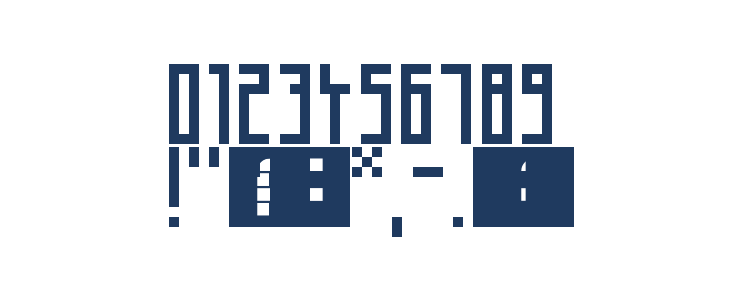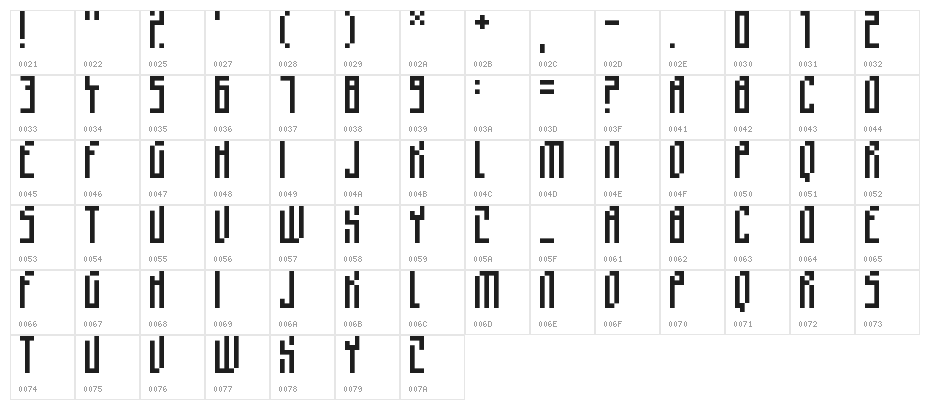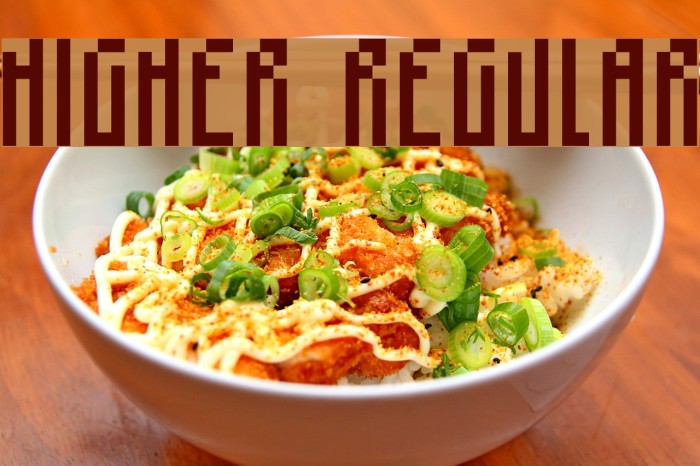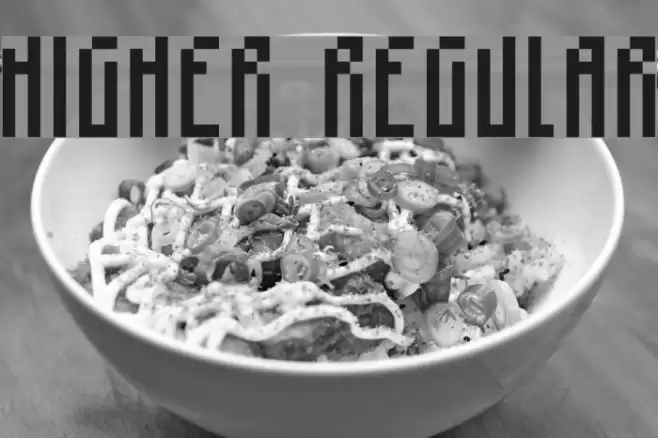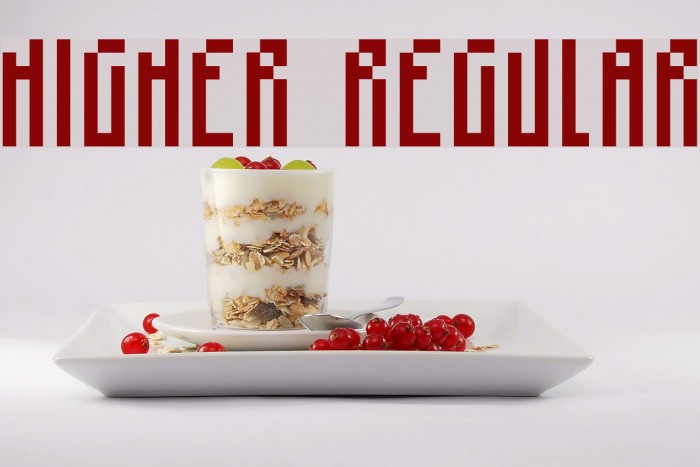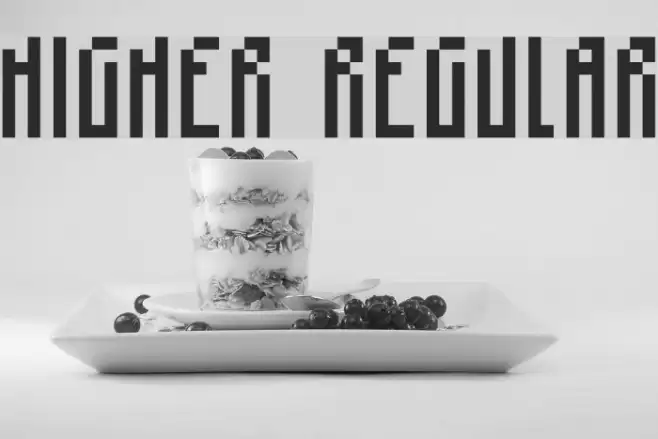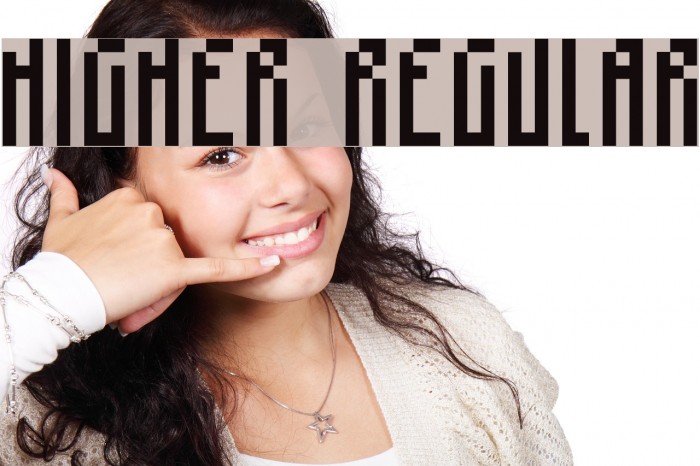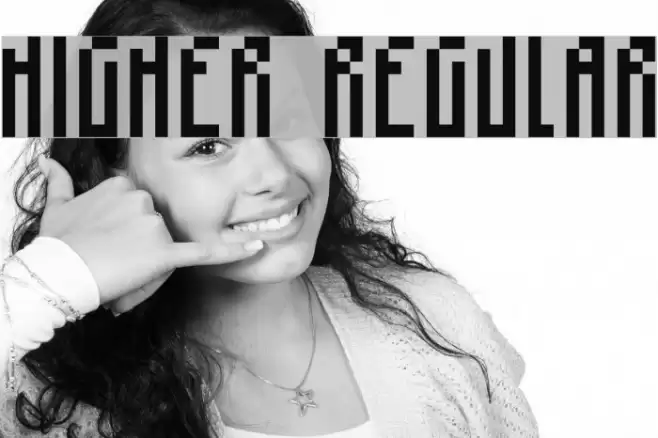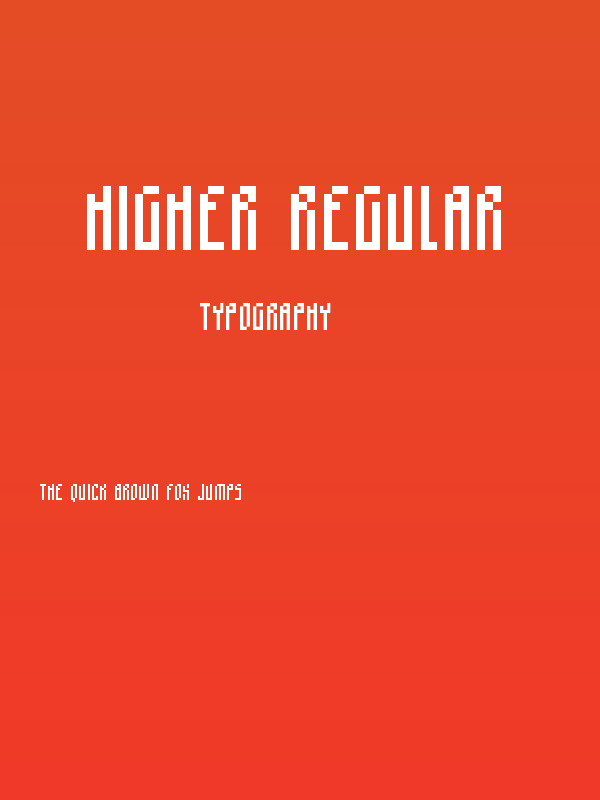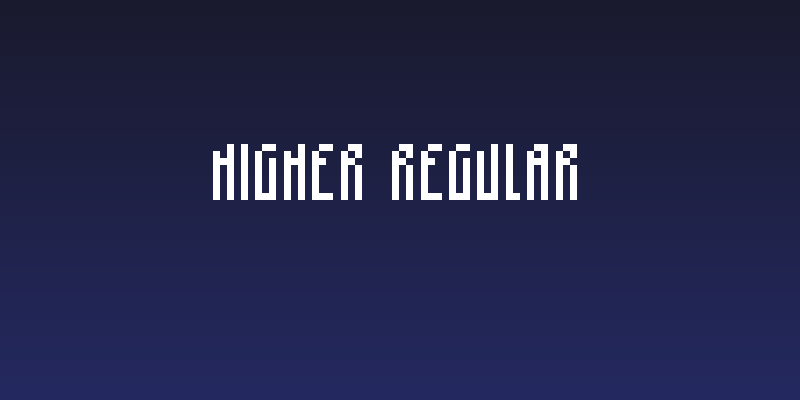
higher Regular Font
higher Regular Description
This font features a bold, geometric design with a distinctly modern and digital aesthetic. The characters are constructed with straight lines and sharp angles, giving it a blocky and pixelated appearance. The uppercase and lowercase letters maintain a consistent height, contributing to a uniform look. The numerals and special characters follow the same geometric style, ensuring cohesion across all elements. The font's structure is reminiscent of early digital displays or retro video game graphics, making it ideal for projects that require a tech-savvy or futuristic feel.
| Use Case | Logos, Headlines, Digital displays |
| Proposed Projects | Ideal for digital art, video game design, tech branding, and futuristic-themed projects. |